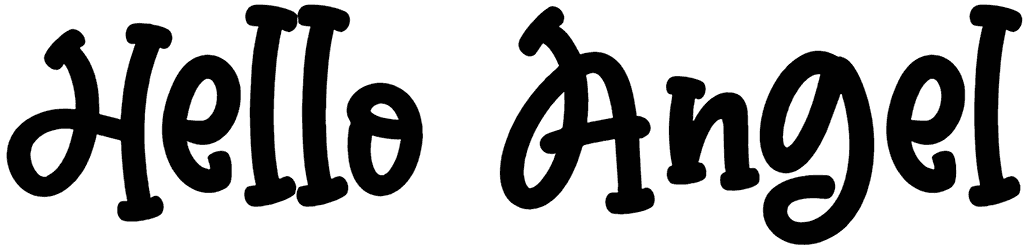
Hello Angel Font
When you look at the Hello Angel font, its funny looking immediately catches your eyes. This cartoon font’s letters have a curvy shape with soft edges that feels smooth and friendly.
The Hello Angel has a distinctive vibe and is practical for different cases, such as animations, cartoons, and posters. Moreover, the bold letters of this font with a playful form entertain the viewers and make a new experience for them.